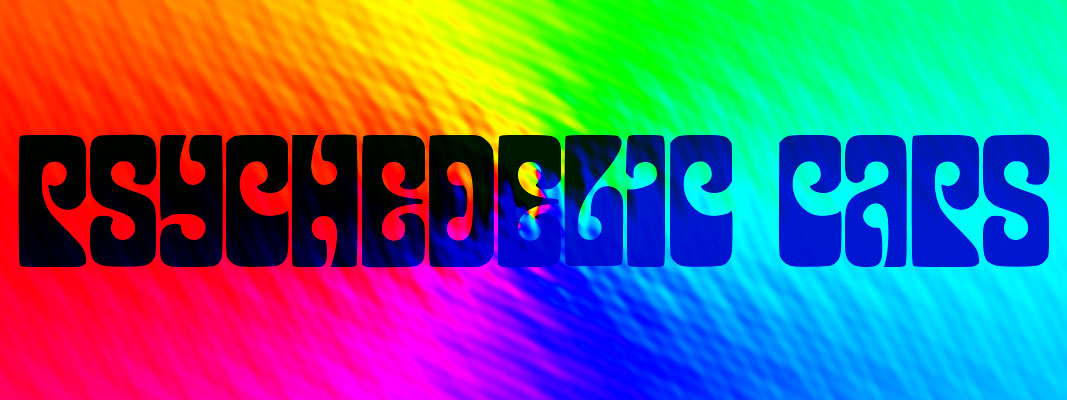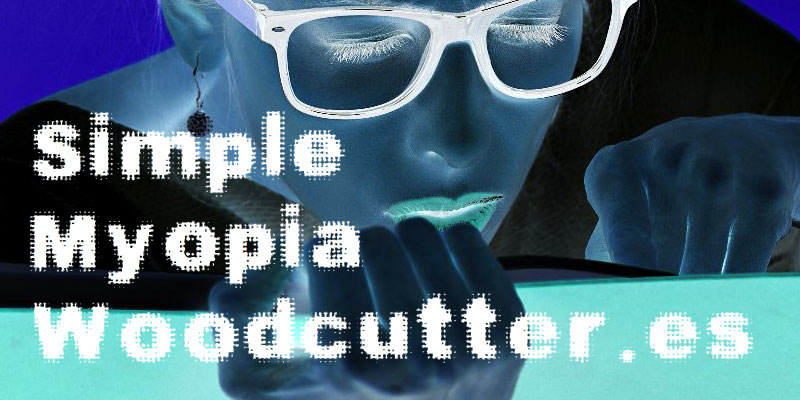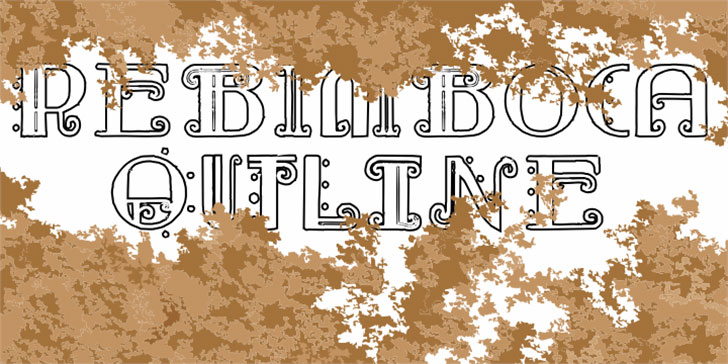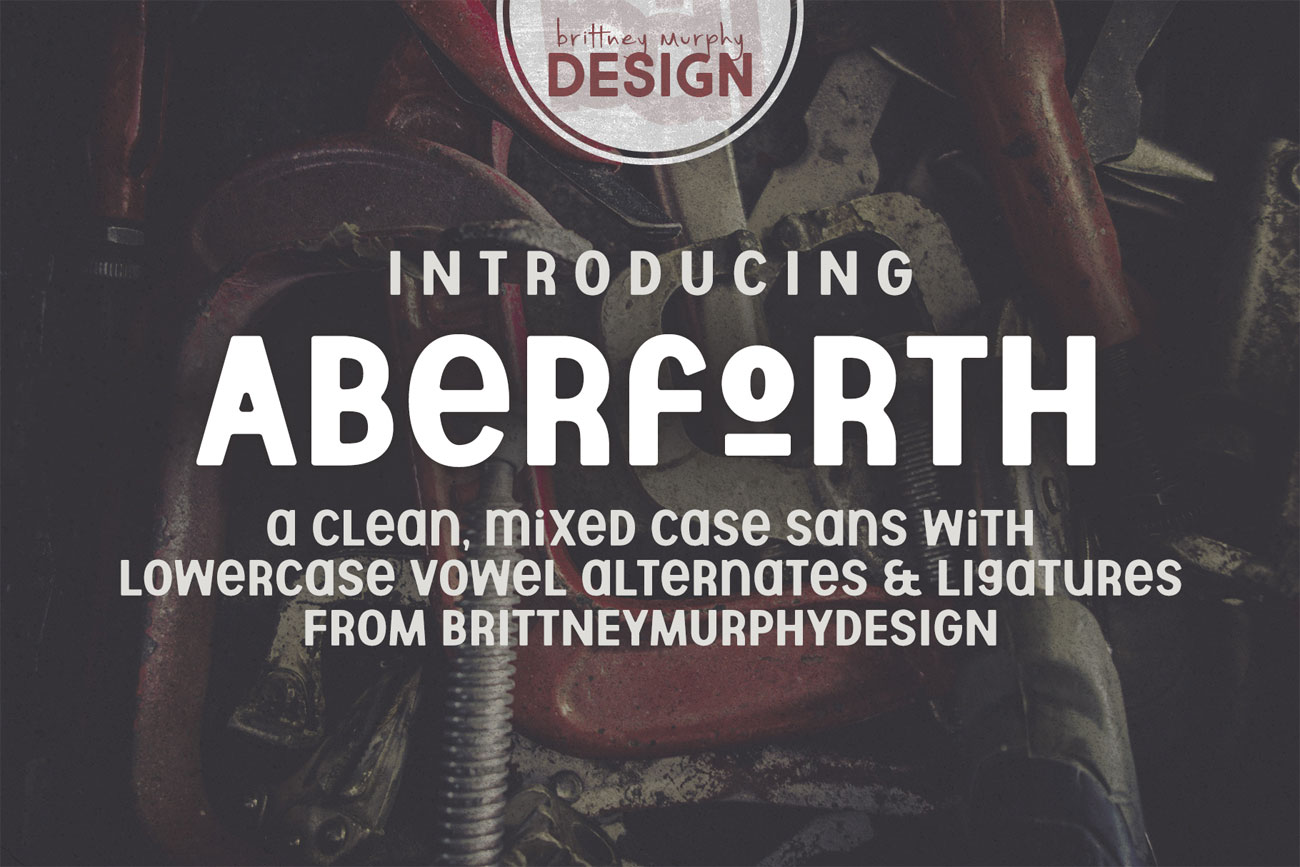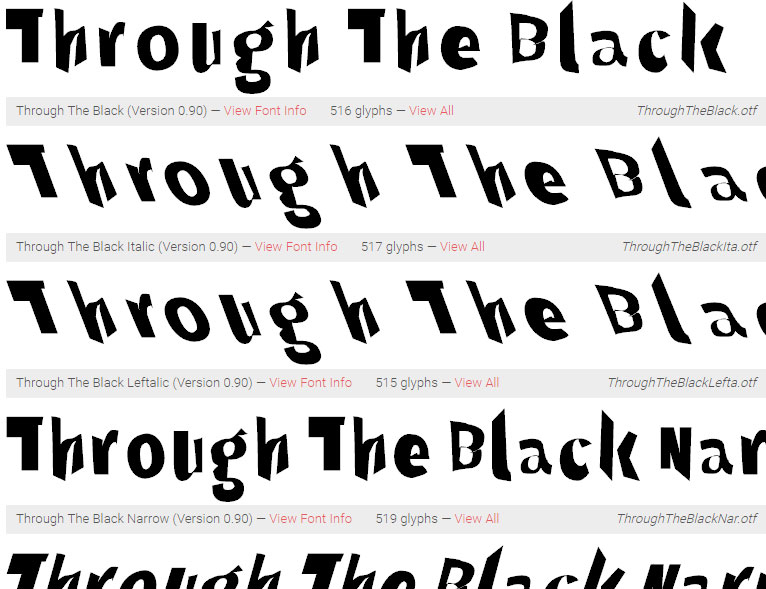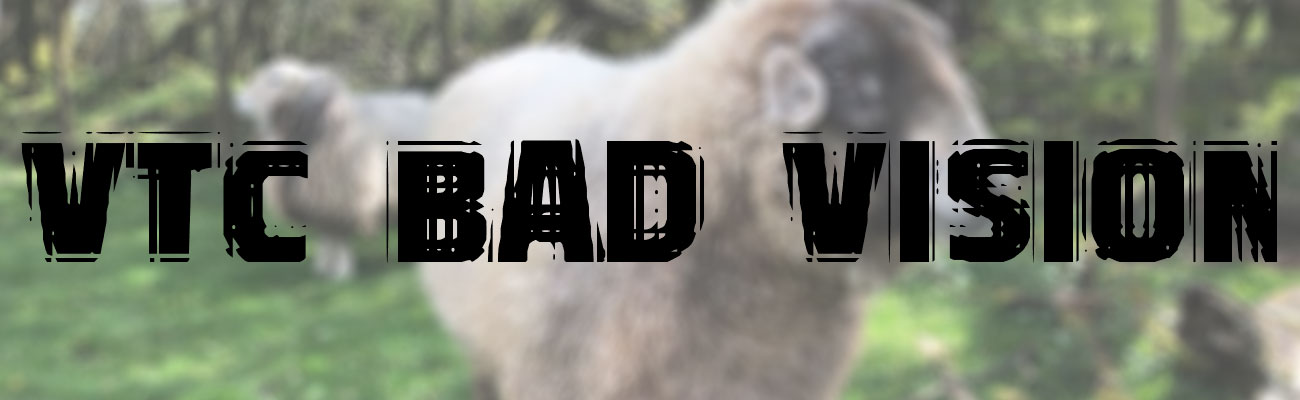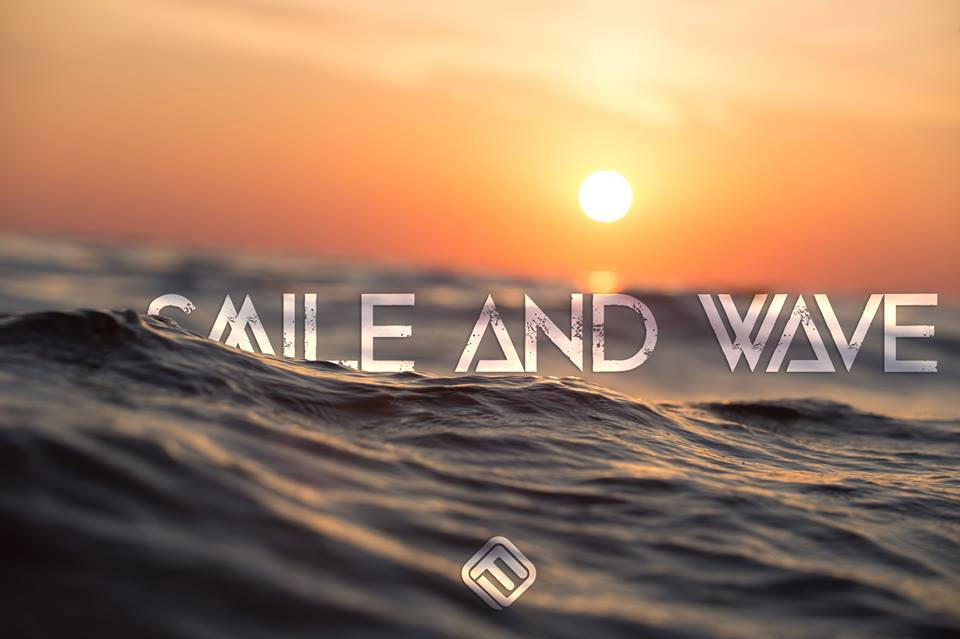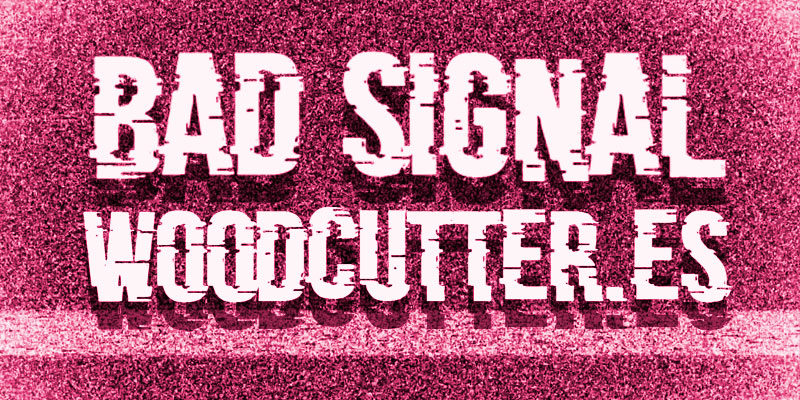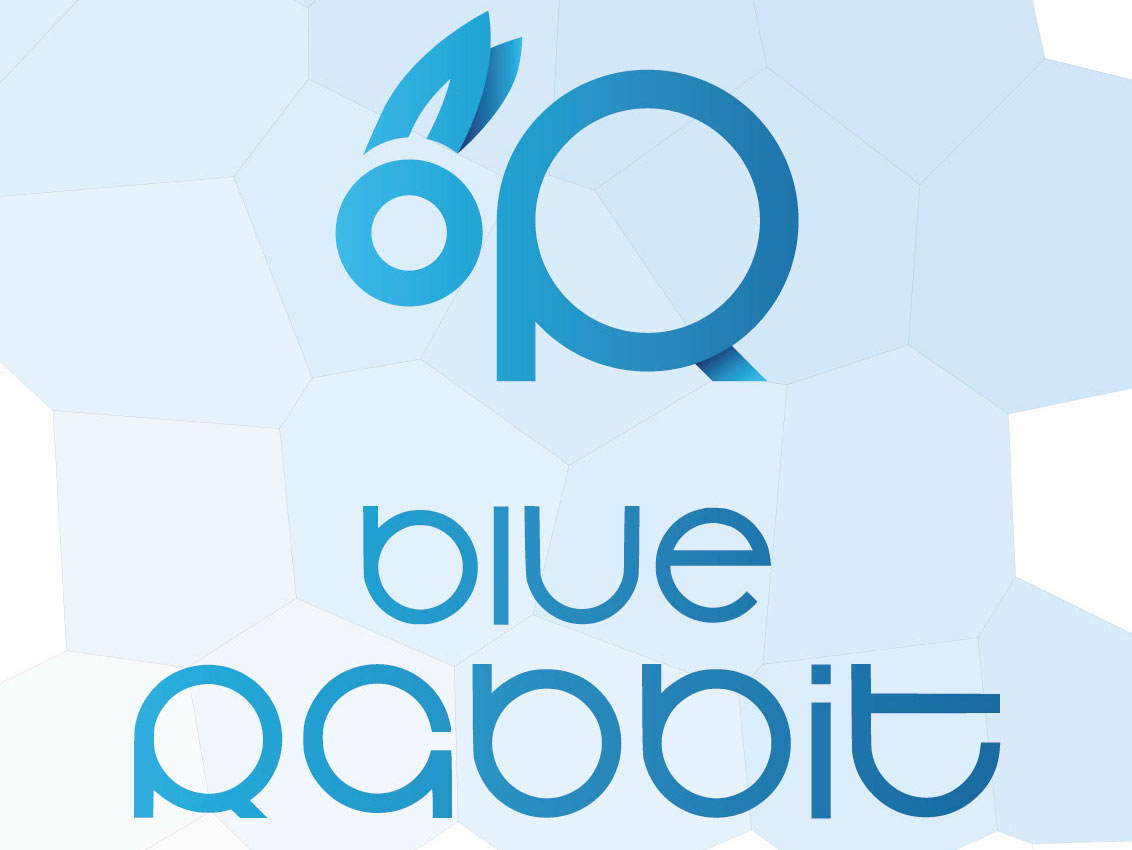
10 unusual free fonts to make your work stand out
Make your work stand out with some unexpected typographic choices.
Every designer has their own preferred set of go-to fonts, a dependable set of serifs and sans-serifs that'll cover most eventualities. But every now and then you find yourself in need of something a little out of the ordinary, a really weird but eye-catching font that you can use sparingly to grab people's attention.
When you're in need of a weird font, you're not always sure exactly what you're looking for; it's the sort of thing that you'll only recognise when you see it. So to help you out, we've gathered together 10 of our favourite weird and unusual fonts for you to download for free today (see more of our favourite free fonts here). All of them are free to use for personal work, and some of them can be used commercially too. And if you want liven things up, check out our pick of the best fun fonts around.
01. Blue Rabbit
We're not entirely sure what it has to do with rabbits, but you can definitely make it appear in blue – or any other colour you like. Blue Rabbit is an excellently circular and elegant typeface that's an intriguing mix of upper and lower-case characters, and guaranteed to catch the eye. It's the work of Willian Santos, and it's free for both personal and commercial use.
02. Pop of the Tops
This hand-drawn and beautifully scratchy take on Cooper Black is the perfect way to give your work a bit of retro cool. Pop of the Tops takes its name the 'Top of the Pops' compilation albums of the 1970s, a very of-its-time series consisting of anonymous cover versions of hit songs. Find one in a middle-aged relative's record collection and you'll see the Cooper Black title (plus a very 1970s cover model). It's free for personal use; contact its creator about commercial usage.
03. Psychedelic Caps
If your retro tastes go further back than the 1970s, Psychedelic Caps is a fab and groovy all-caps font that perfectly captures the spirit of the swinging '60s. Created by Jorge Morón, it's free for personal use and goes perfectly with wild colour schemes. For an added psychedelic feel, we'd advise warping it along a curved path to really bring out its weird proportions.
04. Bad Signal
Bringing things a bit more up to date, here's a bold and brash font with just enough glitch to make people notice. Bad Signal features random lines of distortion streaking through its all-caps characters, giving your text the appearance of a fax sent over a really noisy phone line, hence the name. It's the work of Woodcutter Manero from Spain, and it's free for personal use only.
05. Simple Myopia
Another beautifully distorted font from Woodcutter Manero, Simple Myopia simulates the effect of short-sightedness not by blurring its text, but by scattering the pixels around the letterforms. It's a clever and striking effect that would work well as a headline font or on posters. Simple Myopia comes with both caps and lower case characters, plus symbols and a few accented characters, and it's free for personal use.
06. Smile and Wave
For the most part, Smile and Wave looks like a fairly ordinary all-caps sans serif headline font with a bit of weathering for effect; it's only when you check out the weird and triangular styling on the A, K, M and W that you'll notice its attention-grabbing qualities. If you need a display font that makes people look twice, this is a perfect candidate. It's the work of Chris Vile and it's free for personal use; a commercial licence will cost you $39.
07. Through the Black
If you need your text to give viewers an uneasy feeling, Through the Black by KineticPlasma fonts would be a great way to do just that. Its weirdly-warped characters are far from easy on the eye, delivering an effect a little like looking at a ransom note made from cut-out newspaper text; it's an effect that you'll want to use sparingly on just the right call to action or similar. For all its weirdness, Through the Black is great value – its free for personal and commercial use under the SIL Open Font Licence, and it comes in a whole load of weights.
08. Rebimboca Outline
The original Rebimboca is a beautiful and peculiar deco font by Brazilian designer and typographer Paulo W, with some wonderfully ornate touches; you can buy it here from £11.99. Rebimboca Outline is one of a number of free variants, with all the original's strange charm, but in an outline version that looks almost as good. It's free for personal use, but you can use it for commercial purposes in return for a donation.
09. VTC-BadVision
If you enjoyed the skewed optics of Woodcutter Manero's Simple Myopia, here's a similar take on a myopic view of the world, this time from designer Larry Yerkes who works under the name WolfBainX. VTC-BadVision is an all-caps font that achieves its effect by distorting its text in a way that simulates the look of double vision; from a distance it looks blurred, but up close it's broken-up and scratchy. It's free for personal use only.